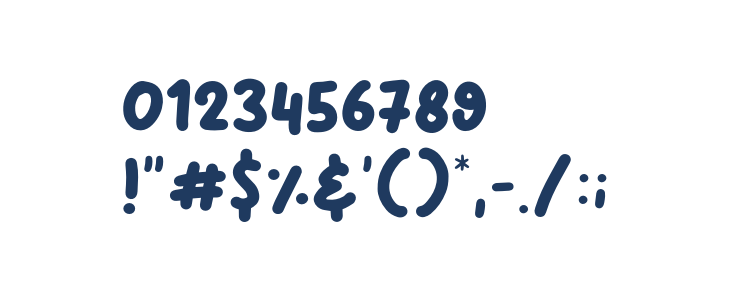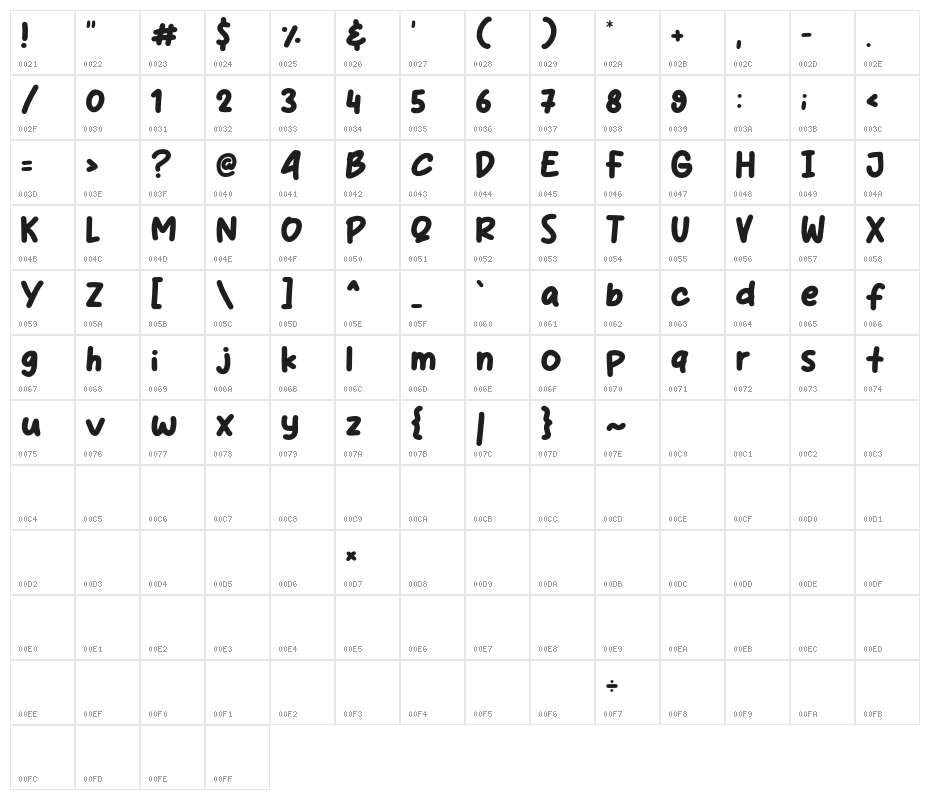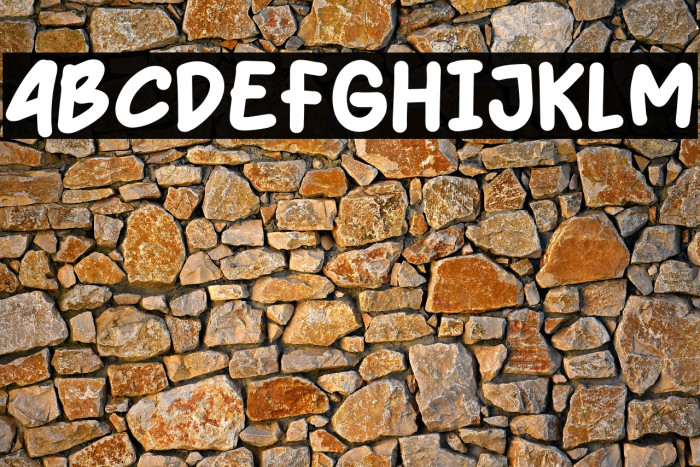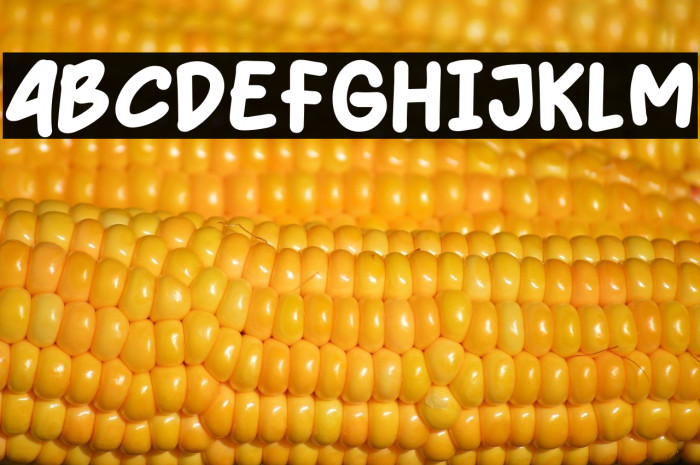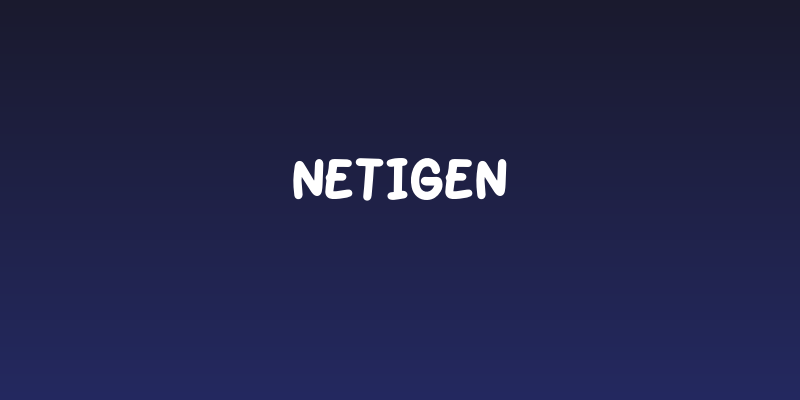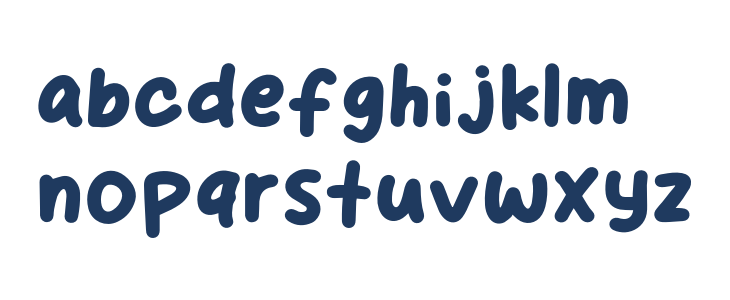
Netigen Font
Netigen Description
This playful and bold font features rounded, thick strokes that give it a friendly and approachable appearance. The characters are slightly irregular, adding a hand-drawn feel that enhances its casual style. The uppercase and lowercase letters maintain a consistent weight, contributing to its cohesive look. Numbers and special characters are designed with the same playful aesthetic, making them easily readable and visually appealing. The font's overall style is informal, making it suitable for projects that require a touch of whimsy and creativity.
| Overall Style | Casual |
| Proposed Projects | Ideal for children's books, playful branding, casual invitations, and creative posters. |